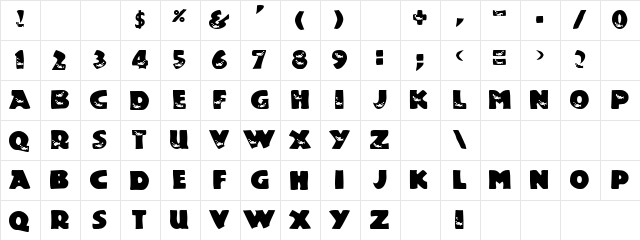
Medha Pathkar Regular
Design Context for Medha Pathkar Typeface
Medha Pathkar is a composed and adaptable typeface that performs quietly and consistently across a wide range of design contexts.
Pro Tip: Use Medha Pathkar in both headline and body roles to test its range before committing to a single application.